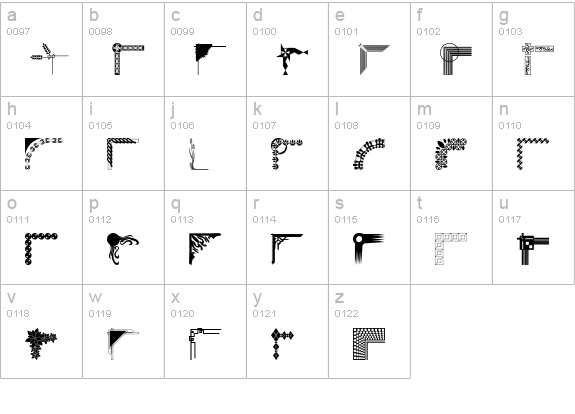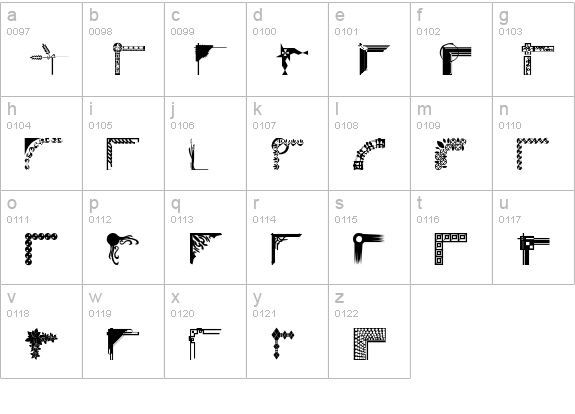
DesignerCorners Font Details
Introducing DesignerCorners font, a modern and stylish typeface perfect for adding a creative touch to your design projects. This unique font features elegant corners and intricate details that make it stand out from the rest. DesignerCorners is versatile and can be used for various design purposes, from branding to social media graphics. The best part? DesignerCorners font is completely free to download at FontsMarket.com! Whether you're working on a personal project or a client's design, this font will elevate your work and give it a professional look. Don't miss out on this amazing opportunity to enhance your design arsenal with DesignerCorners font today.